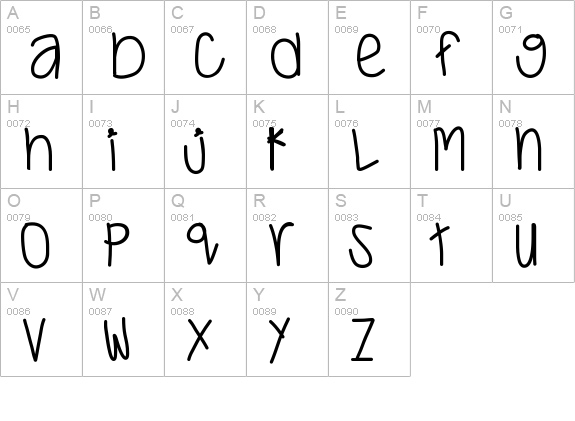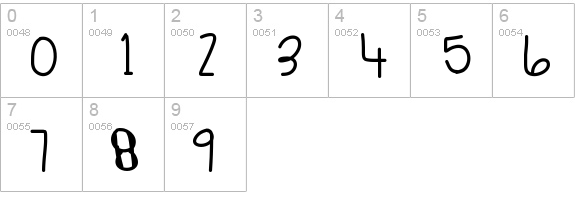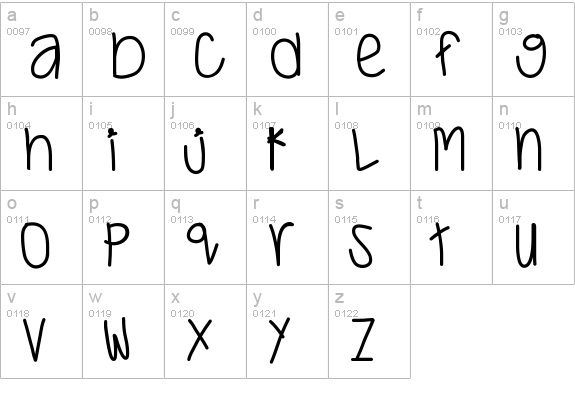
JustWaitAndSee Font Details
Introducing JustWaitAndSee font, a captivating typeface that will leave you in awe of its unique charm. This font effortlessly combines elegance with a touch of playfulness, making it the perfect choice for any design project that seeks to captivate and engage its audience. JustWaitAndSee font boasts a wide range of characters, each meticulously crafted to ensure a seamless flow and readability. Its smooth curves and balanced proportions create a harmonious visual experience that effortlessly draws the eye from one letter to the next. But what truly sets JustWaitAndSee font apart is its versatility. Whether you're working on a logo, branding materials, invitations, or any other creative endeavor, this font adapts effortlessly to any context, adding a touch of sophistication and personality. But that's not all. JustWaitAndSee font also comes with a delightful surprise – it is completely free! Yes, you heard it right. This stunning font is freely available to download at FontsMarket.com, your one-stop destination for high-quality fonts. So why wait? JustWaitAndSee font offers a world of possibilities at your fingertips, allowing you to unleash your creativity without any limitations. Download it now and experience the power of this exceptional typeface. Get ready to leave a lasting impression with JustWaitAndSee font.